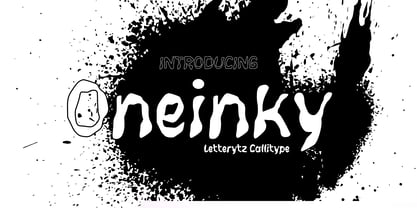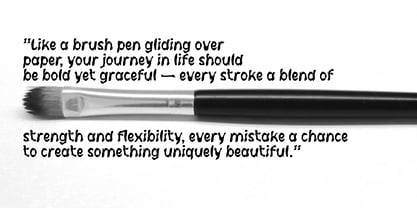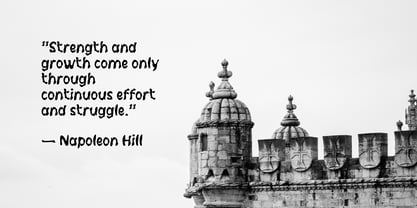
Oneinky
by Letterytz CalliType
The Oneinky Font Family was designed by Wahyu Eka Prasetya, Dian Angga Marytama and published by Letterytz CalliType. Oneinky contains 2 styles and family package options. More about this family
Oneinky Regular & Outline
by Letterytz Callitype
Introducing Oneinky, a bold and playful hand-drawn font family crafted with the spirit of messy ink splatters and expressive handwritten forms. Perfectly balancing character and chaos, Oneinky comes in two styles — Regular and Outline — offering endless creative versatility.
Oneinky Regular delivers thick, organic strokes full of energy, making it ideal for bold headlines, branding projects, children's books, and packaging designs. Its lively shapes bring a spontaneous and approachable feel to any project.
Oneinky Outline offers a fresh twist with a hollowed look, preserving the font's raw, imperfect hand-drawn character while providing a lighter, airy aesthetic. Use it on its own or layer it with the Regular style for stunning design effects.
Each letterform is thoughtfully crafted to maintain the authentic hand-done texture and natural flow, complete with a full set of uppercase, lowercase, numbers, punctuation, and multilingual support.
Features:
• Two Styles: Regular & Outline
• Complete Uppercase & Lowercase
• Numerals & Punctuation
• Multilingual Support
• Organic, hand-drawn texture
• Perfect for posters, branding, social media, merchandise, children's designs, and more
Feel the splash of creativity with Oneinky — where every stroke tells a story.